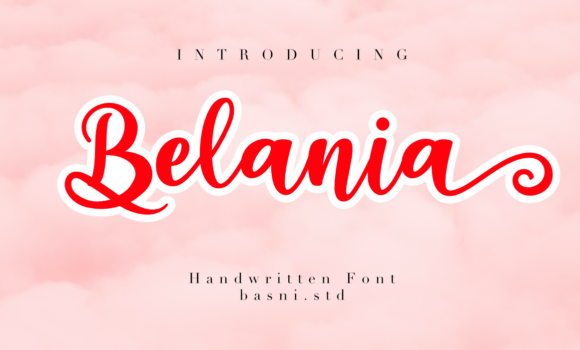
belania
Belania Font - Featured Image
Belania Font – Free Download Introduction to Belania Font Belania is a romantic calligraphy font with a playful twist that every designer should have. 📸 Preview Gallery 4 images 📌 Product Name Belania Font 👤 Author bee.genin 📂 Category Explore